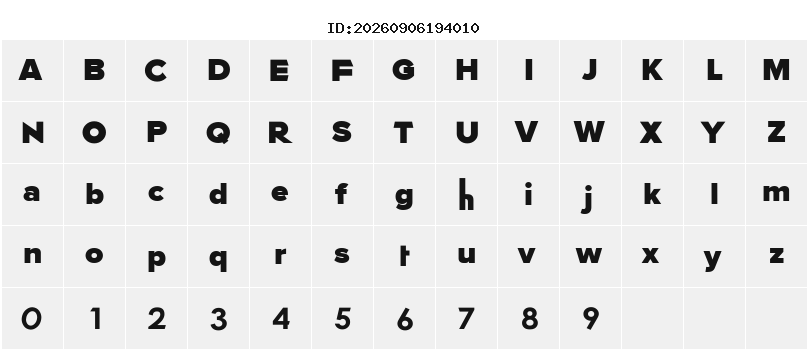
• Font Name: TCF 50s
• Full Font Name: TCF 50s Bold
• Designer: Mark Simonson
About TCF 50s.ttf
TCF 50s.ttf is a modern, elegant sans-serif font designed for ultimate readability and visual harmony. Perfect for branding, headlines, web design, and print materials.